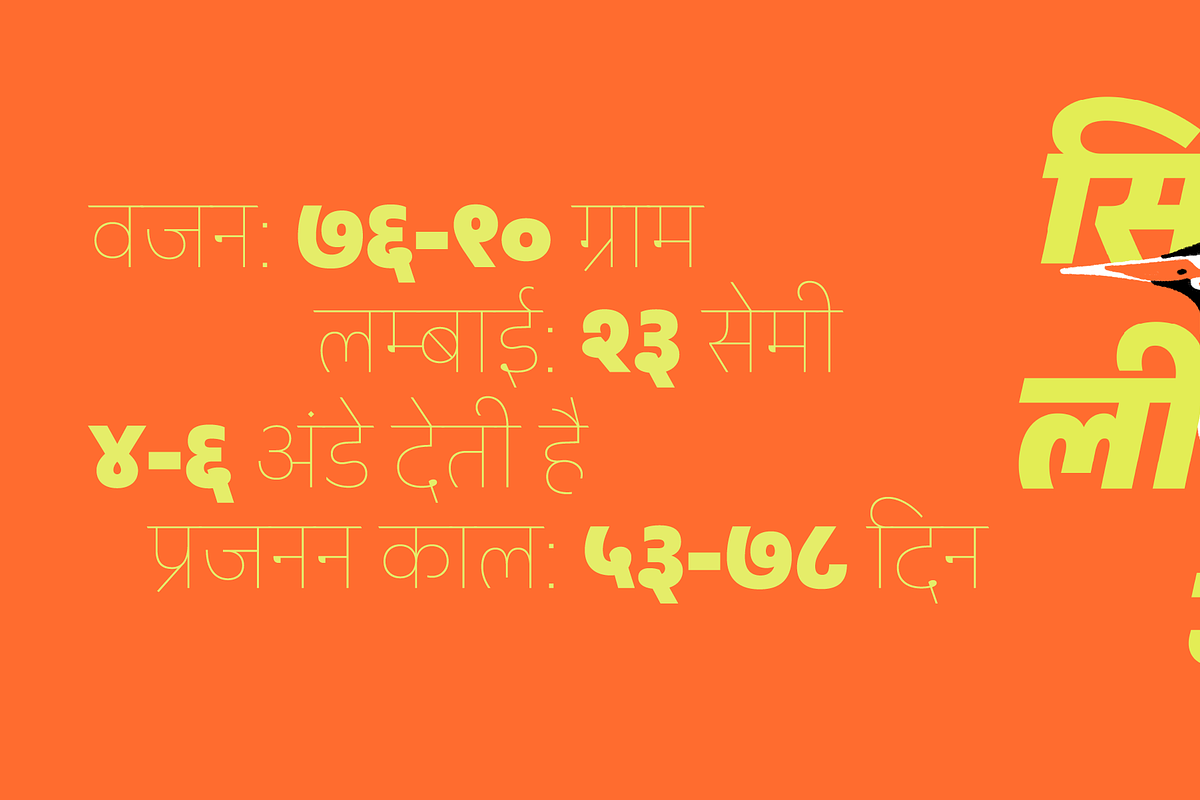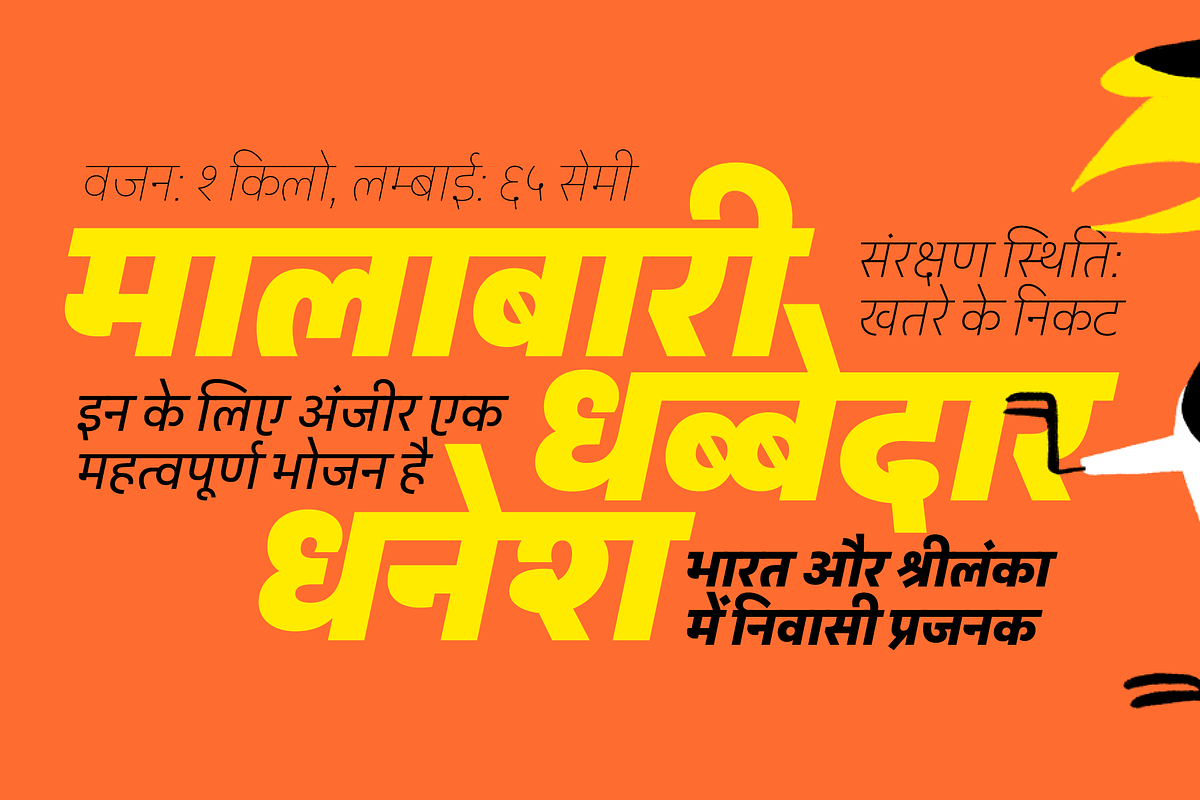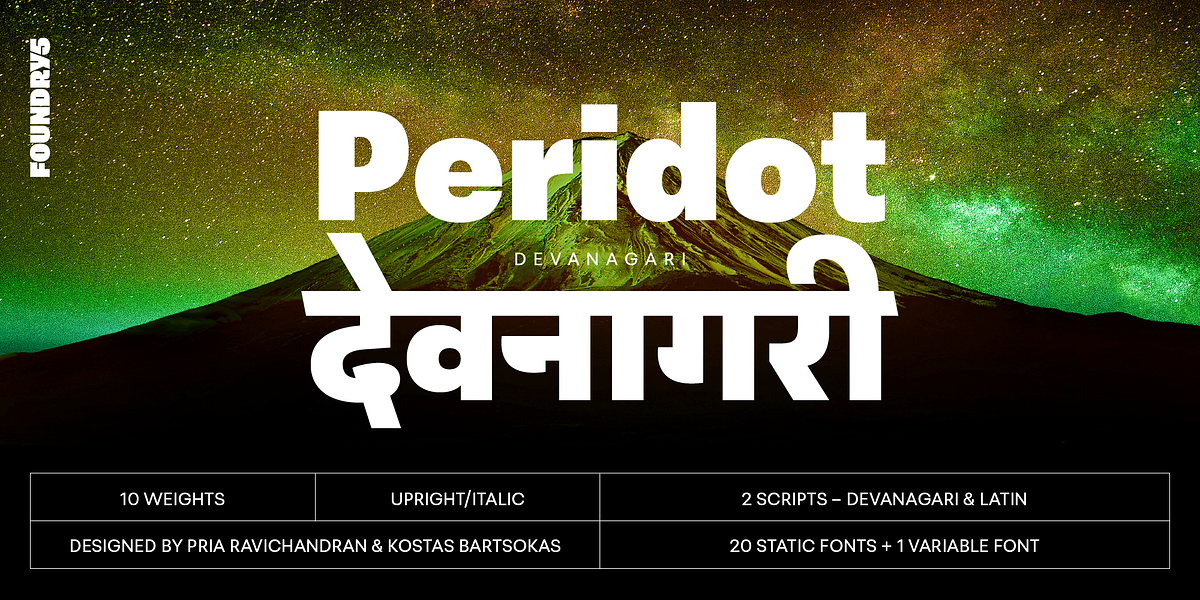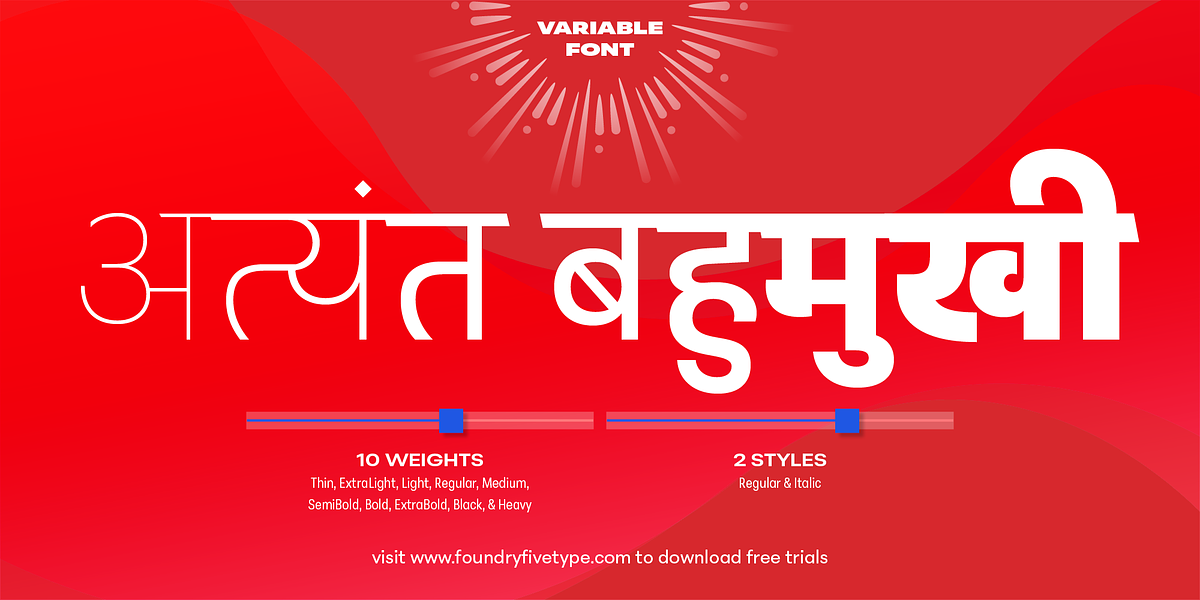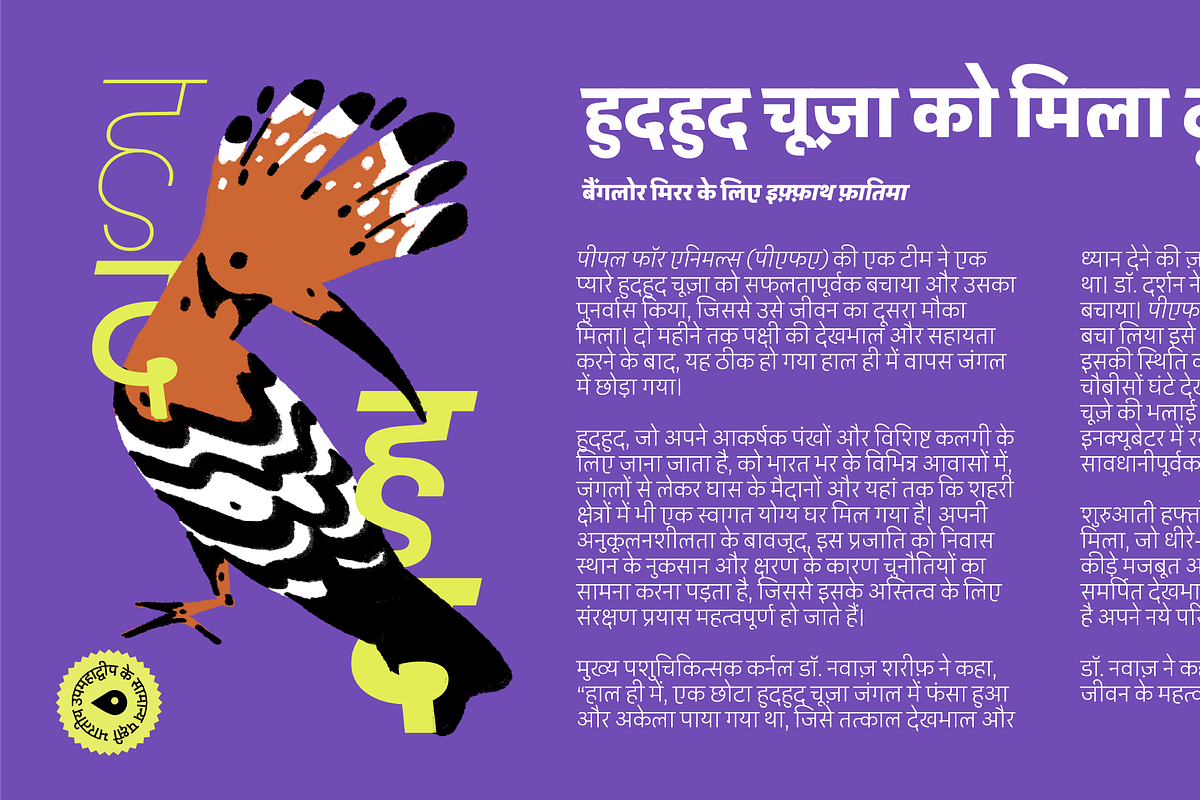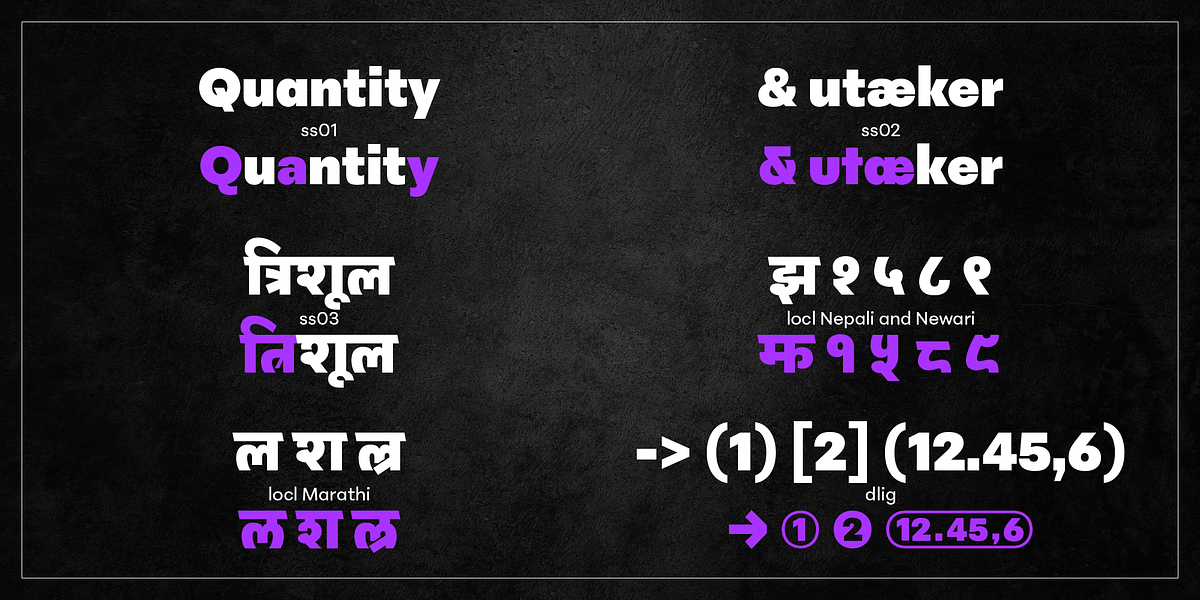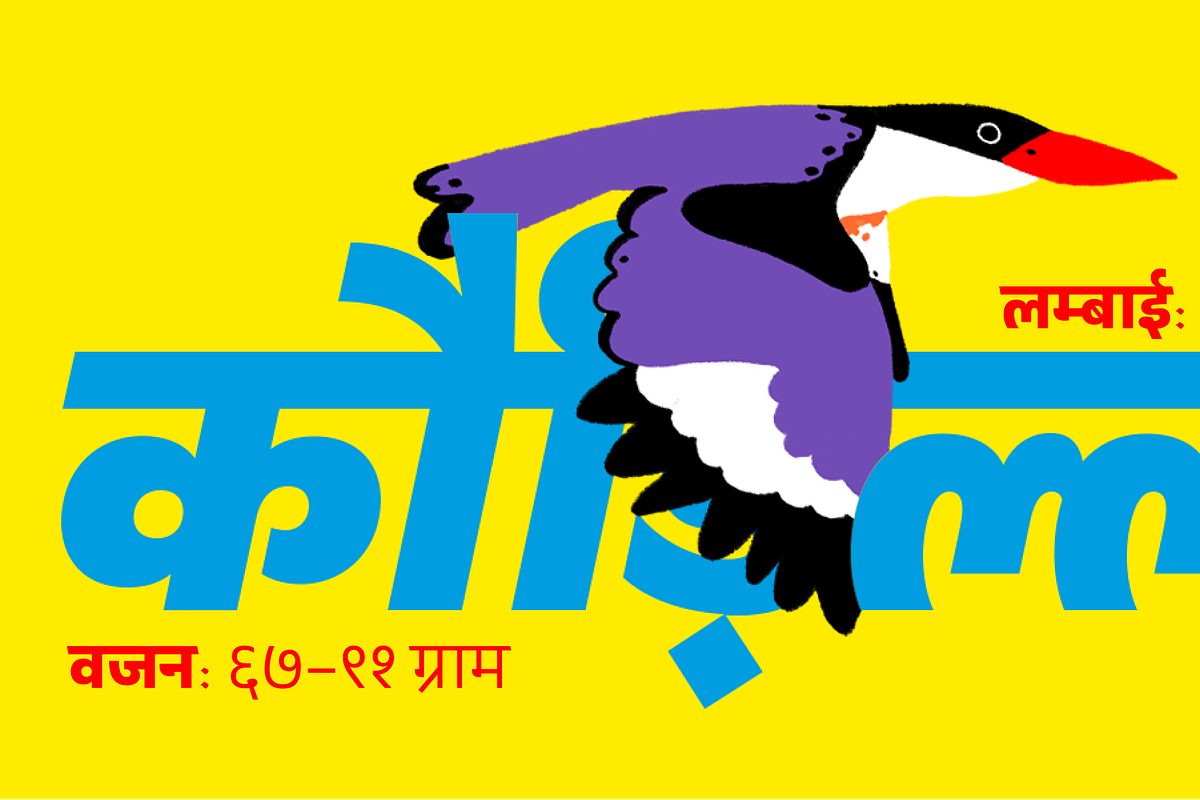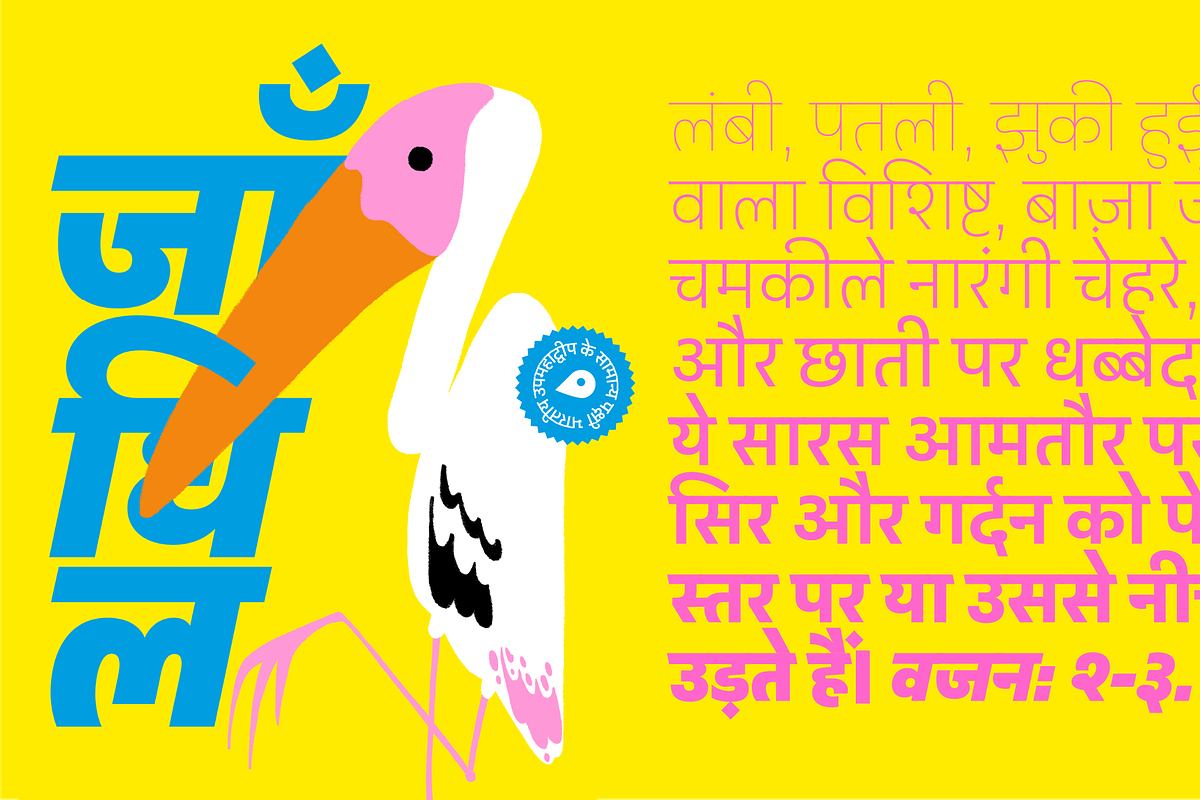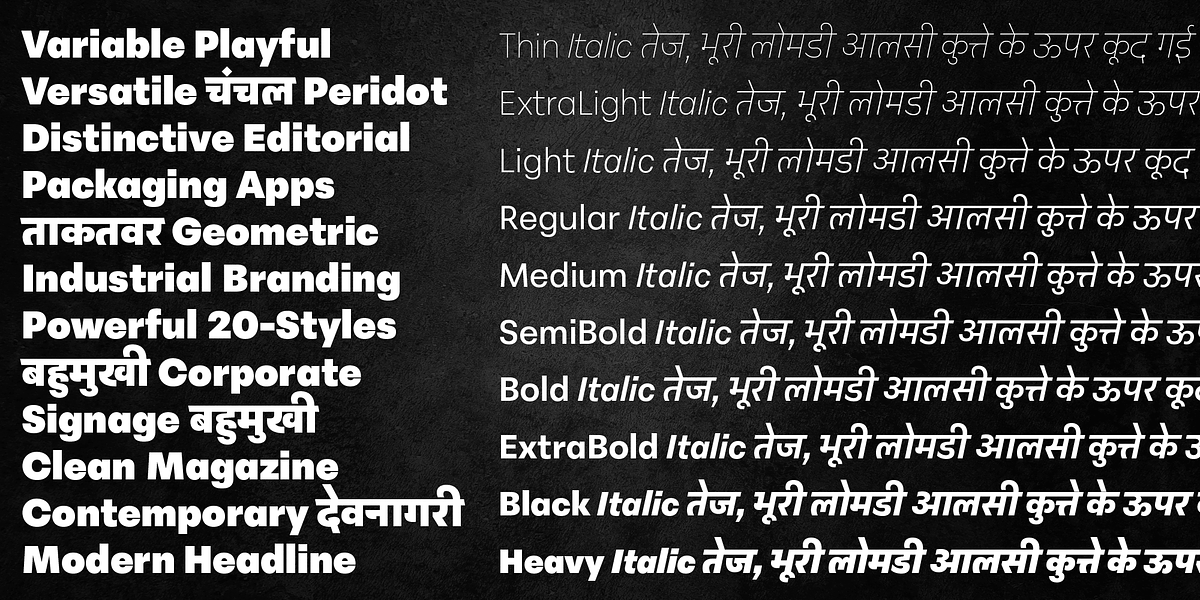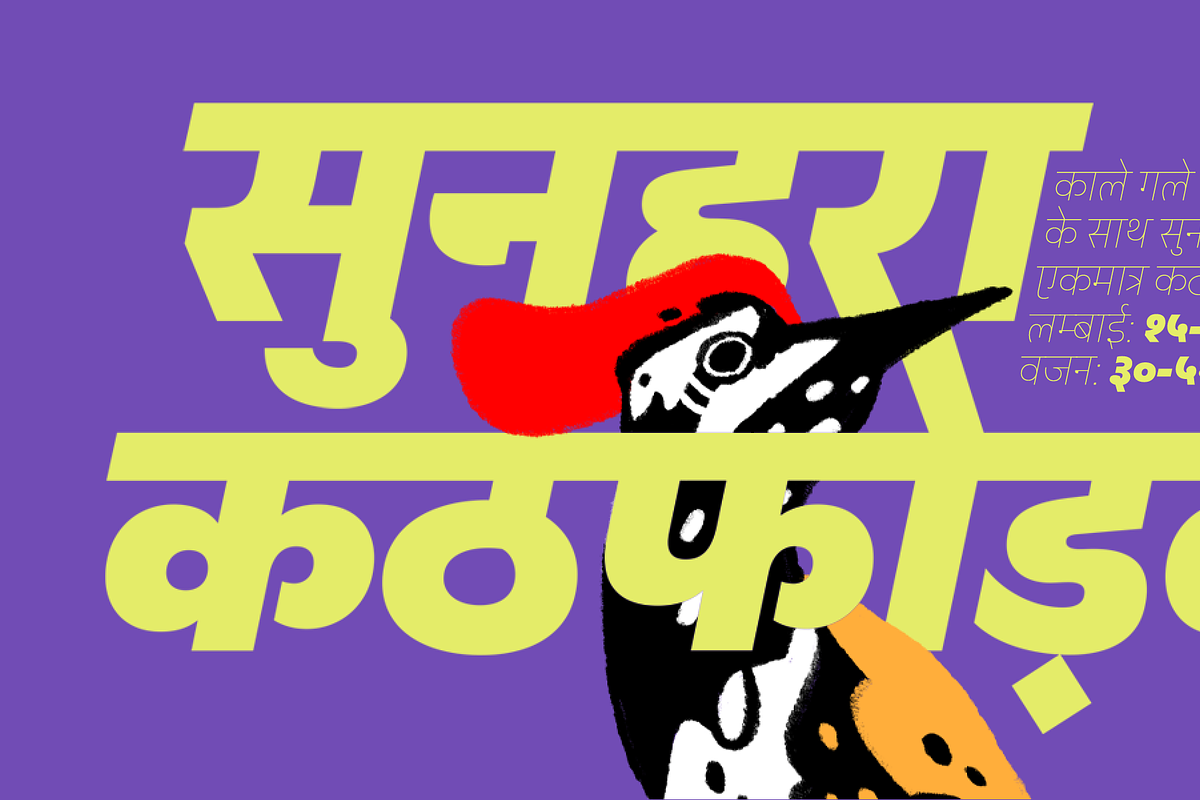
Peridot Devanagari
Peridot is a geometric sans-serif typeface designed by Foundry5. It offers a wide range of styles and widths, including 10 weights and 6 widths, along with a variable font format. This versatility makes it suitable for a variety of applications, from branding and display to editorial design and web use. Peridot also supports Devanagari and Latin scripts, covering over 330 languages.